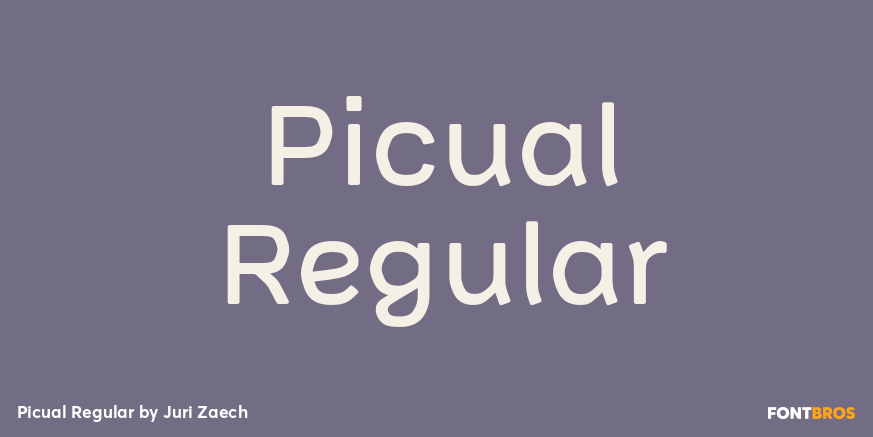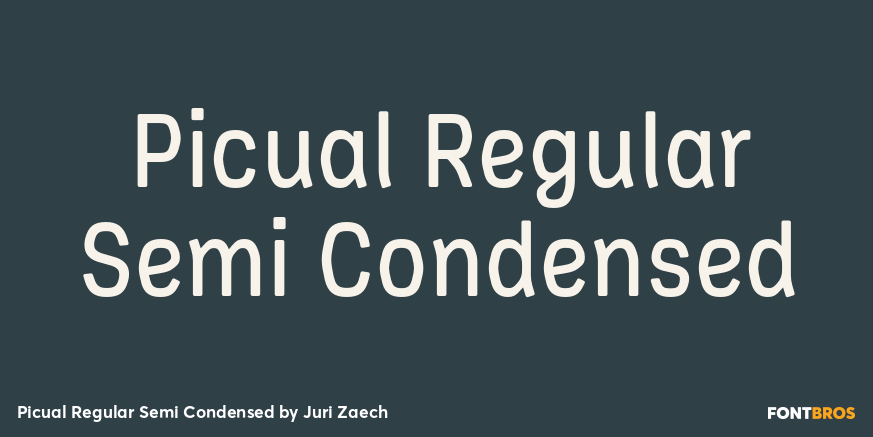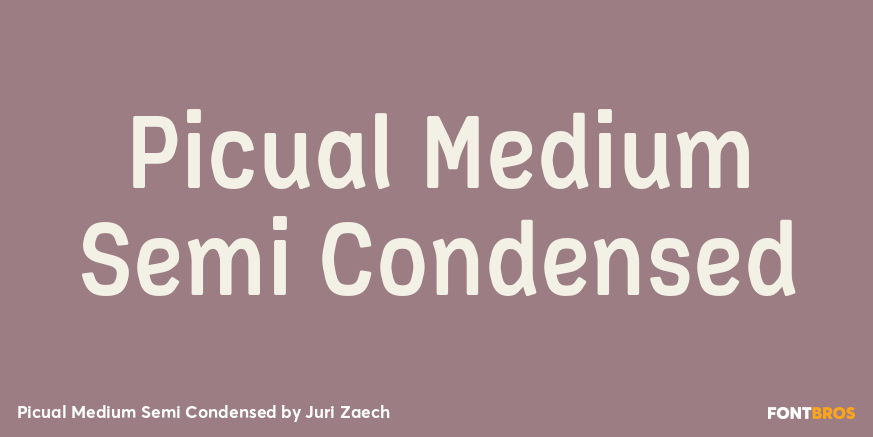
Picual
Font Family by Juri Zaech
Picual is a quirky sans serif type family designed for packaging and branding in natural and organic contexts. Its peculiar shapes give it a handcrafted, slightly imprecise feel. Hexagonal rounds and angled terminals, paired with subtly softened corners, create a characterful and inviting tone across a wide range of applications. From artisanal pantry packaging and organic market signage to sustainability-focused brands, Picual feels at home wherever a human, grounded voice is needed. It also lends itself naturally to outdoor and adventure-oriented projects.
Picual is also the name of an olive variety known for producing excellent olive oil. Originally from Spain, it is now cultivated in other parts of the world, including California, where Picual (the typeface) was designed.
The type family comes in four straightforward weights (Light, Regular, Medium, and Bold) and three widths, from Standard to Condensed. These twelve styles cover a broad range of applications and can be easily combined in clear hierarchies. For finer control, Picual is also available as a single variable font, allowing seamless interpolation across all weights and widths.
Despite its friendly, low-key appearance, Picual is far from simple. It features an extended character set supporting over 200 Latin languages and includes a useful range of OpenType features, such as stylistic alternates for I, a, g, k, and the ampersand; circled numbers; automatic fractions; case-sensitive punctuation; and a discretionary Th ligature. The twelve-style family is also available as a variable font, bringing all styles together in a single, flexible file.